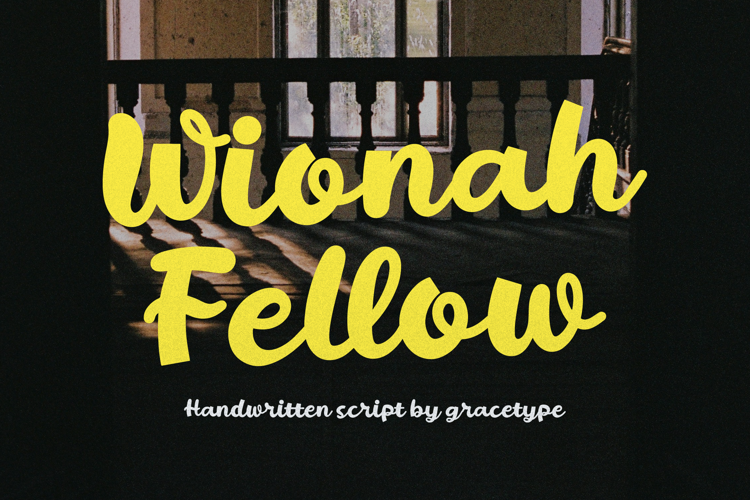
Wionah Fellow Font
Wionah Fellow | Handwritten Script, is suitable for any projects such as: logos, branding projects, homeware designs, product packaging, mugs, quotes, posters, shopping bags, t-shirts, book covers, name card, invitation cards, greeting cards, label, photography, watermark, special events, and all your other lovely projects that need a Script taste.